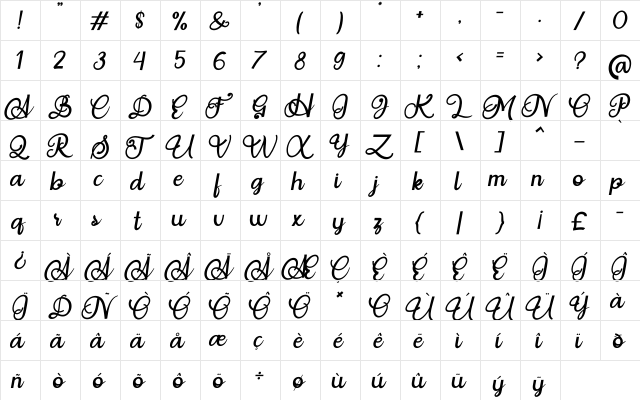
Situgintu Personal Use Regular
| Foundry | FallenGraphic |
| Designer | Vava Aryanto |
Design Context for Situgintu Personal Use Typeface
Situgintu Personal Use is a composed and adaptable typeface that performs quietly and consistently across a wide range of design contexts.